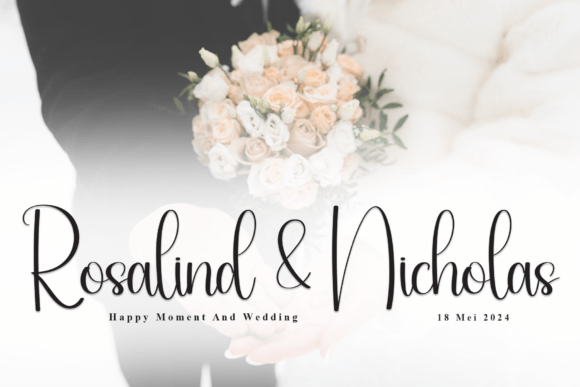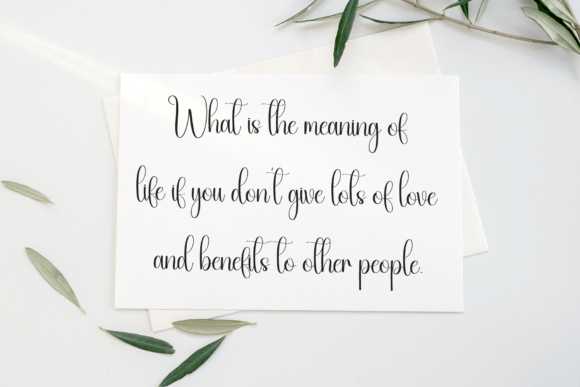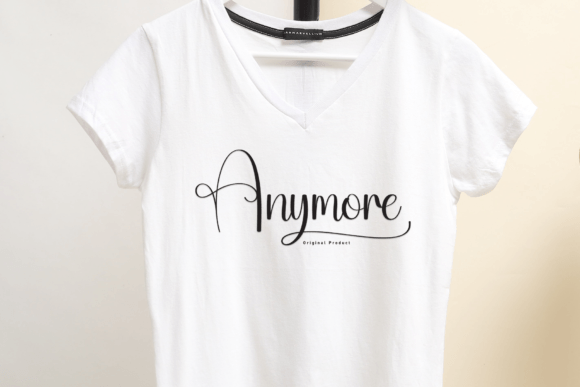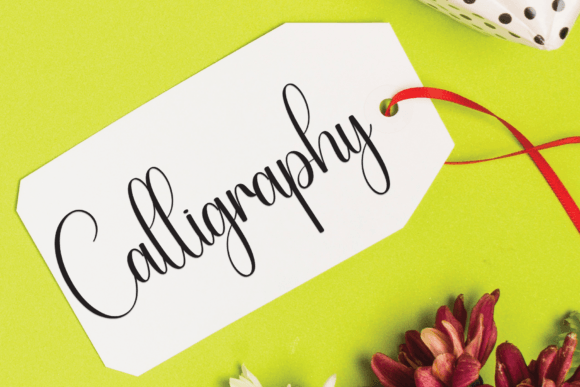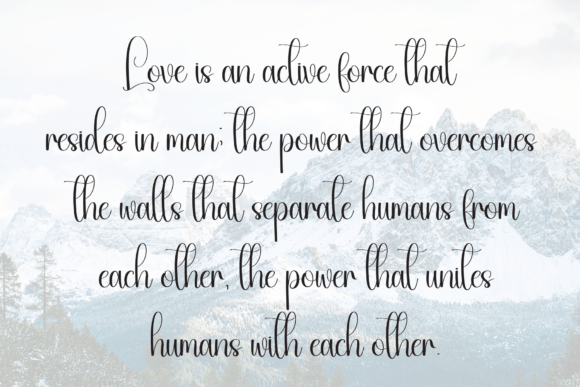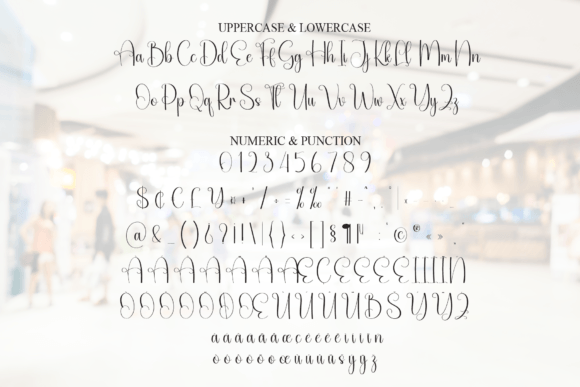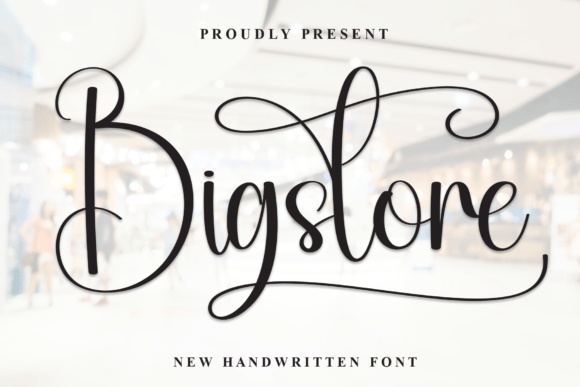
Introducing Bigstore Font: Elevate Your Designs with Elegance and Personality
In the world of typography, a font can make or break a design. For designers and crafters looking to add a touch of sophistication and charm to their projects, Bigstore Font is an excellent choice. This modern and charming handwritten font is designed to exude elegance and personality, making it perfect for upscale invitations, personal branding, and chic editorial designs.
The Characteristics of Bigstore Font
Bigstore Font boasts graceful, flowing strokes that give it a refined and luxurious feel. Its sophisticated character makes it an ideal choice for designers looking to create high-end designs that stand out from the crowd. The font’s unique blend of modernity and elegance ensures that it can be used in a variety of contexts, from formal events to personal branding projects.
Perfect for Upscale Invitations
When it comes to creating invitations for special occasions such as weddings, galas, or formal events, the font used can set the tone for the entire event. Bigstore Font is perfect for upscale invitations, as its elegant and sophisticated character conveys a sense of luxury and refinement. Whether you’re designing invitations for a high-end wedding or a formal gala, Bigstore Font is sure to make a lasting impression.
Personal Branding with Bigstore Font
In today’s digital age, personal branding is more important than ever. A well-designed personal brand can help you stand out in a crowded market and establish your identity. Bigstore Font is an excellent choice for personal branding projects, as its unique and sophisticated character can help you create a lasting impression. Whether you’re designing a logo, business card, or website, Bigstore Font can help elevate your brand to the next level.
Chic Editorial Designs with Bigstore Font
Bigstore Font is not just limited to invitations and personal branding projects. Its elegant and refined character makes it perfect for chic editorial designs, such as fashion magazines, blogs, or articles. The font’s flowing strokes and sophisticated character can add a touch of luxury and sophistication to any editorial design, making it perfect for designers looking to create high-end content.
Why Choose Bigstore Font?
So why choose Bigstore Font over other fonts? Here are just a few reasons:
- Elegance and Sophistication: Bigstore Font exudes elegance and sophistication, making it perfect for high-end designs.
- Unique Character: The font’s unique blend of modernity and elegance ensures that it stands out from the crowd.
- Versatility: Bigstore Font can be used in a variety of contexts, from formal events to personal branding projects.
- Easy to Read: Despite its elegant and refined character, Bigstore Font is easy to read, making it perfect for body text and headlines.
Tips for Using Bigstore Font
Here are a few tips for using Bigstore Font in your designs:
- Use it sparingly: Bigstore Font is a statement font, so use it sparingly to make a lasting impression.
- Pair it with a sans-serif font: Pairing Bigstore Font with a sans-serif font can create a beautiful contrast and add visual interest to your design.
- Experiment with different colors: Bigstore Font looks stunning in a variety of colors, so don’t be afraid to experiment and find the perfect hue for your design.
In conclusion, Bigstore Font is a modern and charming handwritten font that exudes elegance and personality. Its graceful, flowing strokes and sophisticated character make it perfect for upscale invitations, personal branding, and chic editorial designs. With its unique blend of modernity and elegance, Bigstore Font is sure to elevate your projects and make a lasting impression. So why wait? Try Bigstore Font today and experience the refined allure and warmth of this beautiful font.